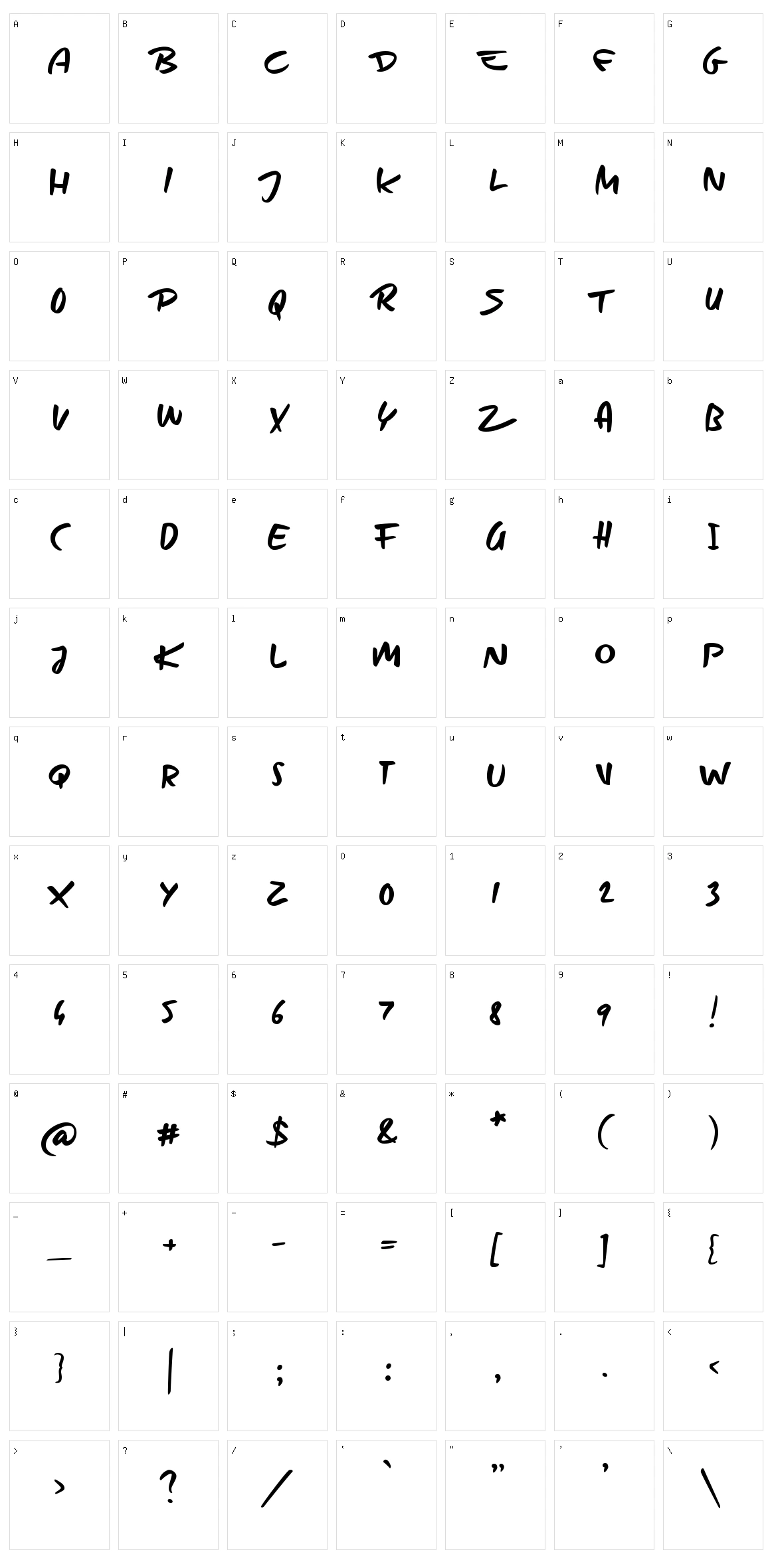
Take it Easy
Designed by: Roland Huse Design
ÿþTAKE IT EASY is a funky all caps marker hand drawn font.
The "lowercase" letters are alternates for their uppercase pairs, so you can play around combining them to give your text a better flow!